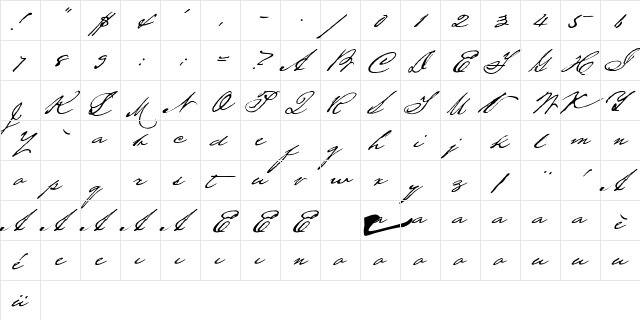
HoustonPen Regular
Design Context for HoustonPen Typeface
HoustonPen is a composed and adaptable typeface that performs quietly and consistently across a wide range of design contexts.